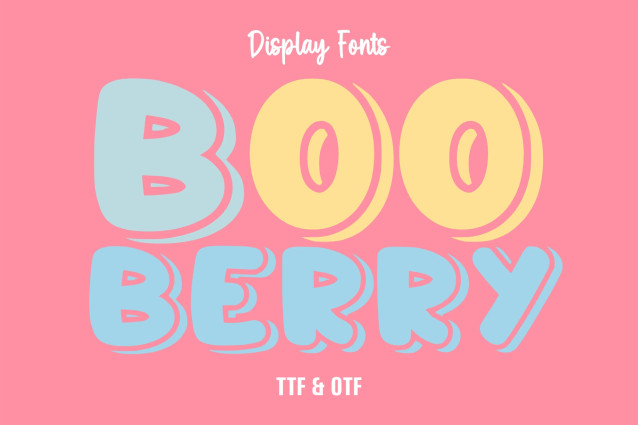
Booberry Font
Introducing Booberry – an audacious and contemporary display font. Poised to seamlessly integrate into any of your projects, this typeface is the epitome of versatility, lending itself flawlessly for logos, stickers, package designs and Cricut projects. With its striking ability to shape brand identities, don headlines, and indelibly imprint on the t-shirt or apparel industry, Booberry simply elevates. Dive into its limitless applications – be it on posters, magazines, books, or skyrocketing the aesthetics of your YouTube, Instagram and website content. Essentially, Booberry is the essential partner to any of your imaginative design ventures.